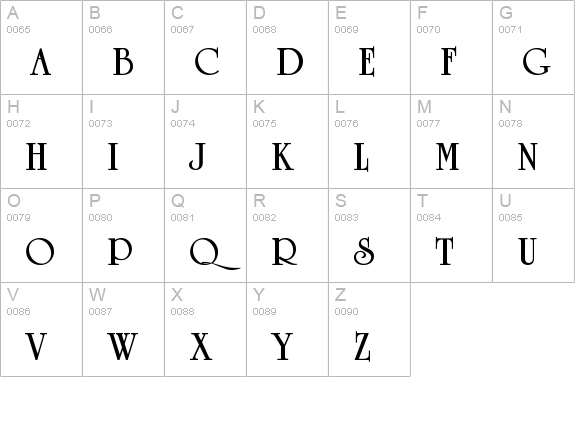
University Roman Std Bold is a strong, high-contrast variant in the University typeface family \xE2\x80\x94 well suited to headlines, attention-grabbing titles, and strong calls-to-action.
University Roman Std Bold is a versatile and powerful font that exudes confidence and professionalism. With its bold and sturdy letterforms, this font is perfect for creating impactful headlines, logos, and branding materials. Whether you're designing a poster, a website, or a magazine layout, University Roman Std Bold will make your text stand out and command attention. This font is not only visually appealing but also highly functional. Its clean and legible design ensures that your message is delivered clearly and effectively. The bold weight adds an extra level of emphasis, making it ideal for highlighting important information or creating strong visual hierarchy in your designs. One of the best things about University Roman Std Bold is that it is freely available to download at FontsMarket.com. This means that you can use this font in your personal and commercial projects without any restrictions or limitations. Whether you're a student, a professional designer, or a hobbyist, this font is accessible to everyone. So why not give your designs a touch of sophistication and elegance with University Roman Std Bold? Download it for free today at FontsMarket.com and unlock endless possibilities for your creative projects.